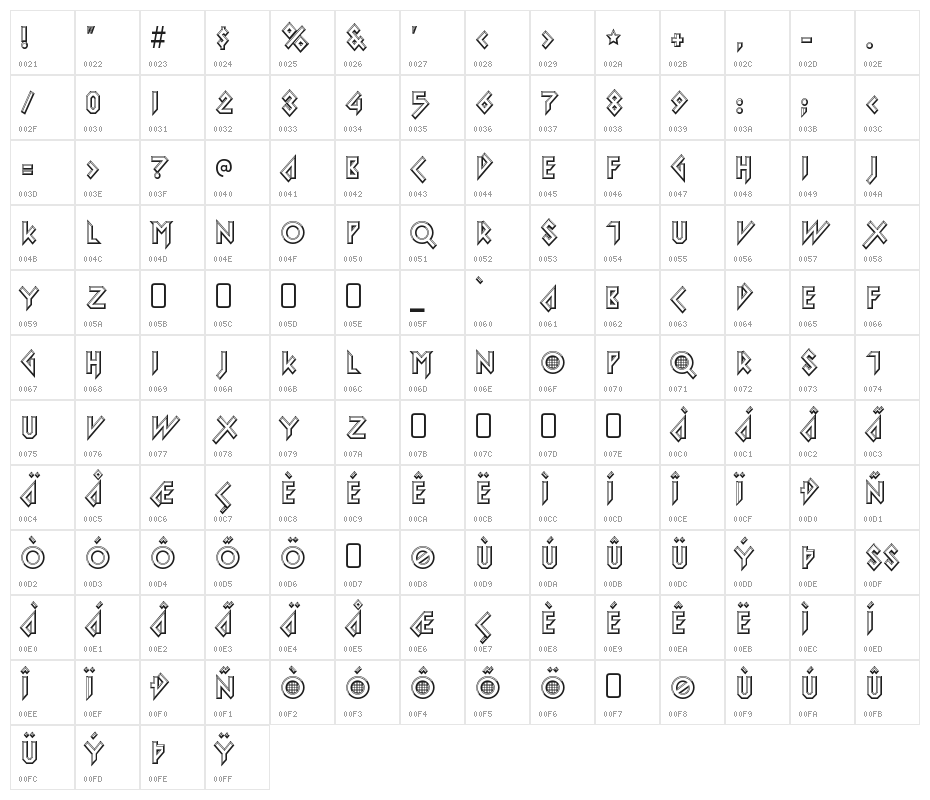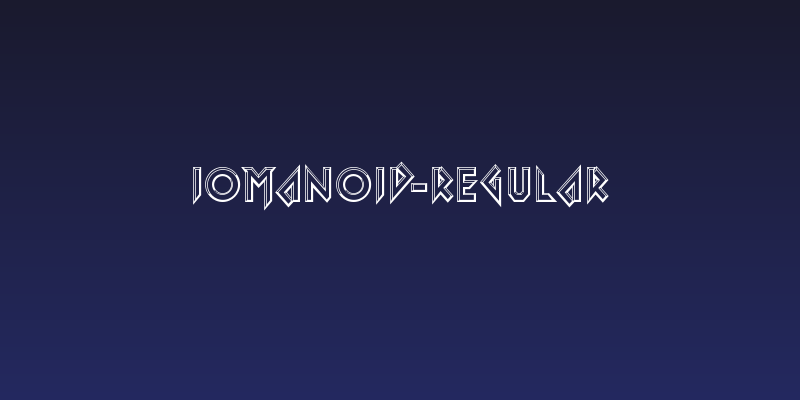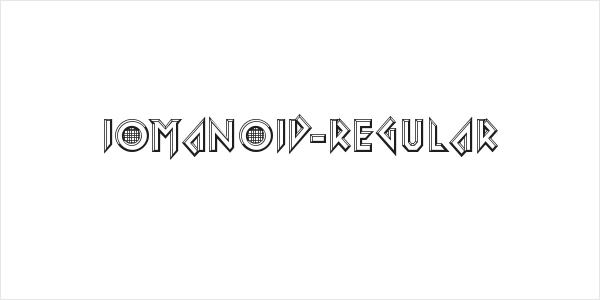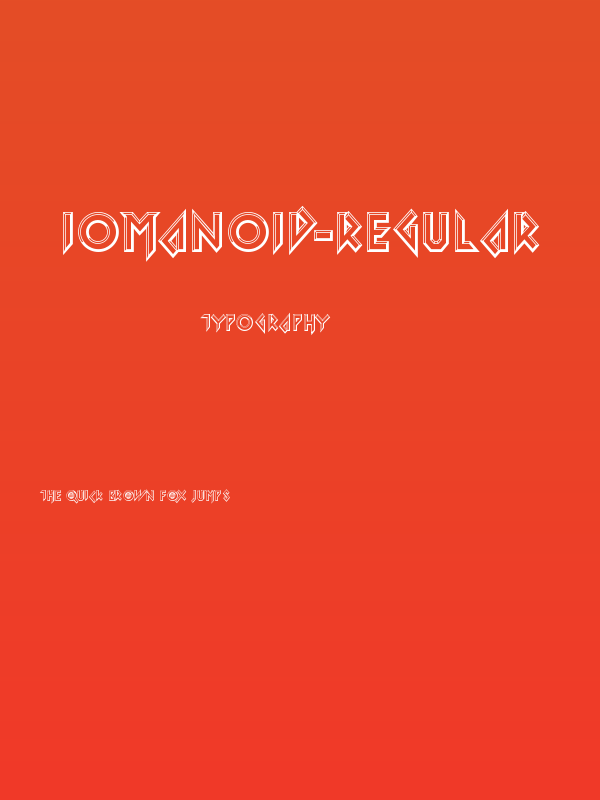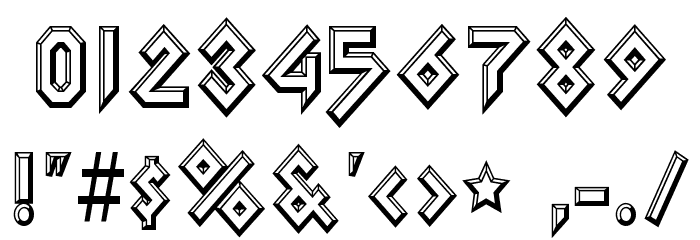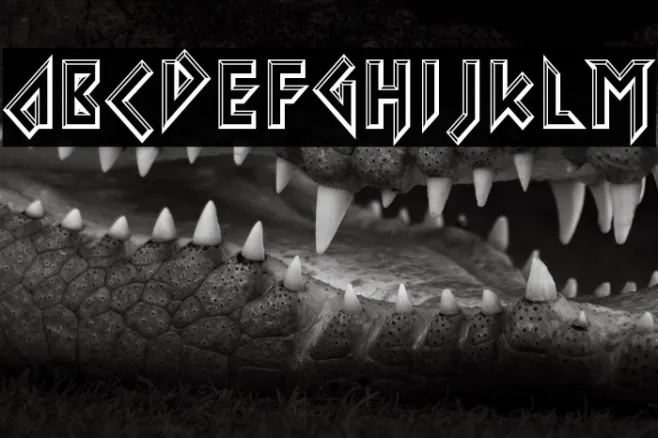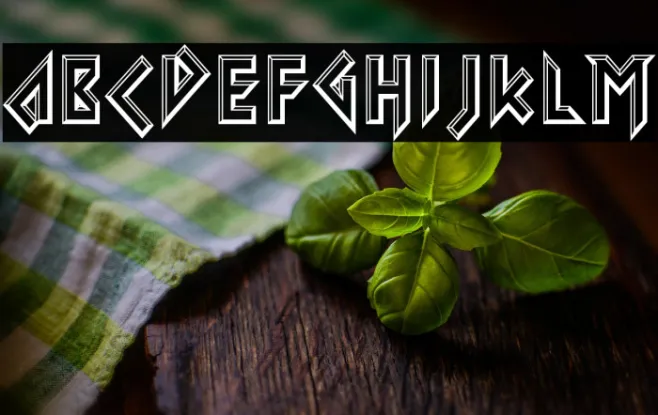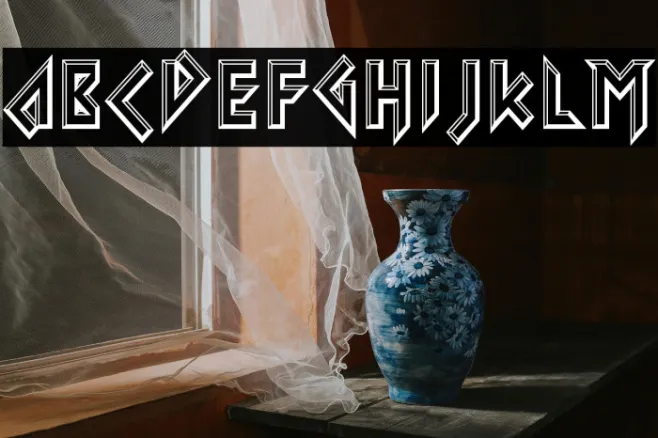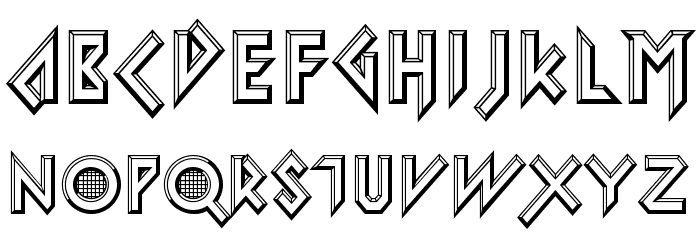
Iomanoid-Regular Font
Iomanoid-Regular Description
This font features a bold and futuristic design with a three-dimensional effect. The characters are outlined with a shadow, giving them a striking and dynamic appearance. The geometric shapes and sharp angles contribute to a modern and edgy style, making it stand out in any design. The uppercase and lowercase letters maintain a consistent style, with numbers and special characters following the same aesthetic. This font is ideal for projects that require a bold statement and a contemporary look.
| Proposed Projects | Ideal for sci-fi themed posters, video game titles, tech branding, and modern advertising campaigns. |